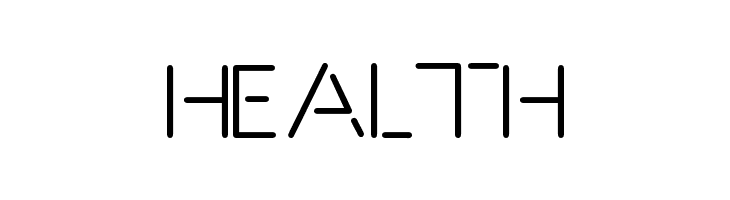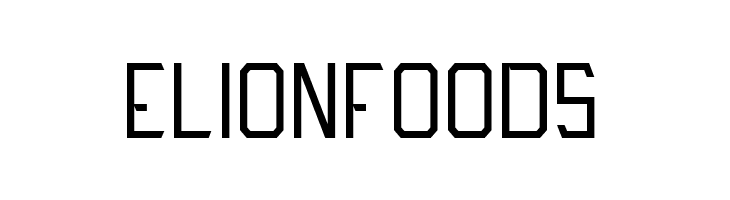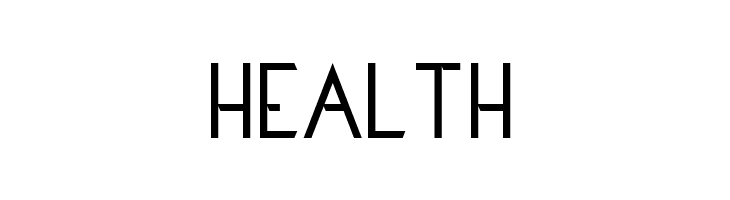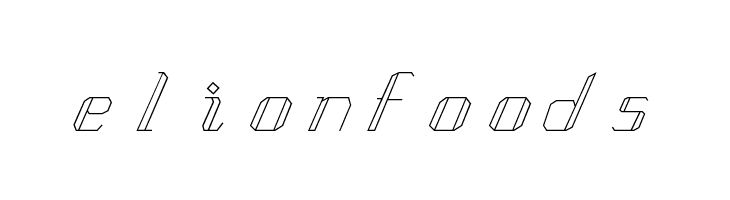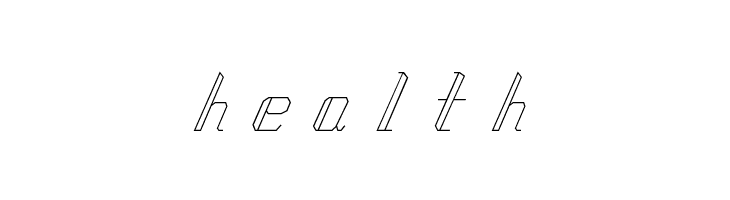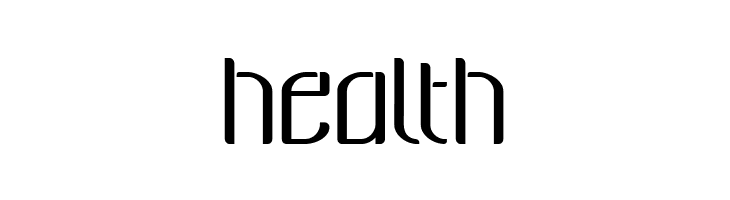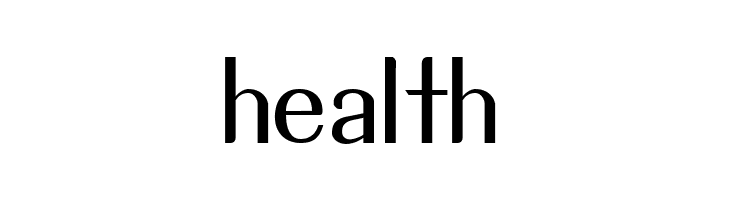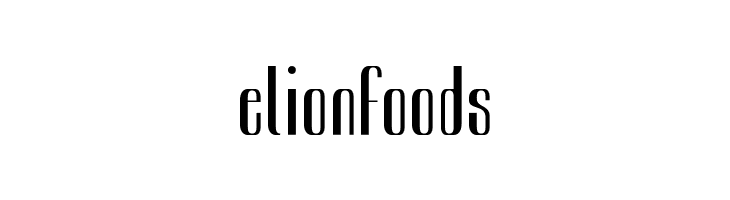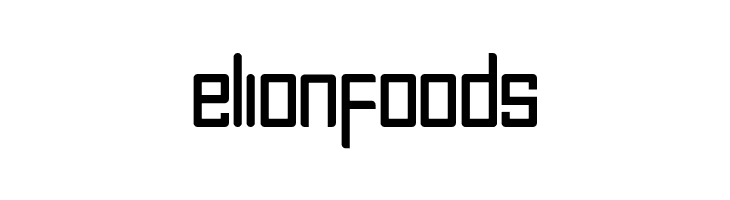
( Aldo Dattoli )
A modern, geometric font with a unique cut-out style and sleek design.
( Alex Dale - www.behance.net/alexiandale )
A geometric, angular font with a modern and structured design.
( Alex Manlangit - www.alexmanlangit.com )
A modern, geometric font with angular lines and a sleek, dynamic style.
( Alkimia Fonts Studio - www.behance.net/alkimiafonts )
A modern, geometric font with tall, narrow characters and consistent stroke width.
( Alkimia Fonts Studio - www.behance.net/alkimiafonts )
A modern, geometric font with tall, narrow characters and a minimalist style.
( Anja Pöchhacker )
A modern, geometric font with rounded edges and a sleek design.
( Arief Budiman - behance.net/arfbdman )
A modern, geometric font with sharp angles and smooth curves.
( Arterfak Project - Ahmad Ramzi Fahruddin - creativemarket.com/Arterfak )
A tall, narrow font with a modern and sleek design.
( Artspace Design - Mas Mujib - www.behance.net/artspacedec21c )
A geometric and modern typeface with clean lines and angular shapes.
( Bayley Design - William Bayley - behance.net/bayleydesign www.freshcomfonts.co.uk/william-suckling-22-c.asp )
A minimalist, geometric font with thin, clean lines and a modern aesthetic.